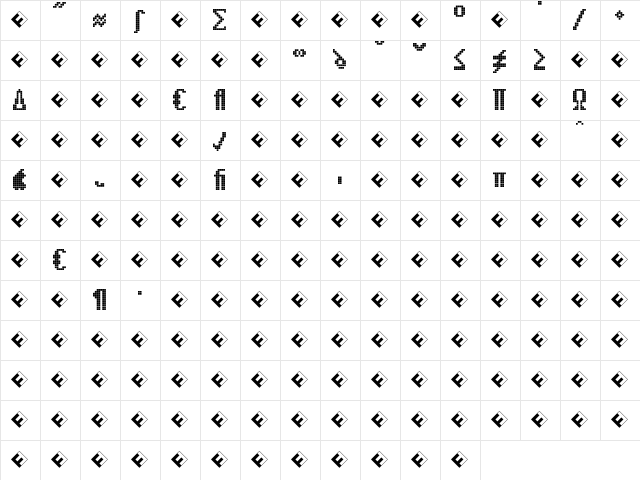
CallFiveL-RegularExp Regular
Design Context for CallFiveL-RegularExp Typeface
CallFiveL-RegularExp takes a measured approach to typography — its balanced proportions and neutral character make it a reliable workhorse for both digital and print work.